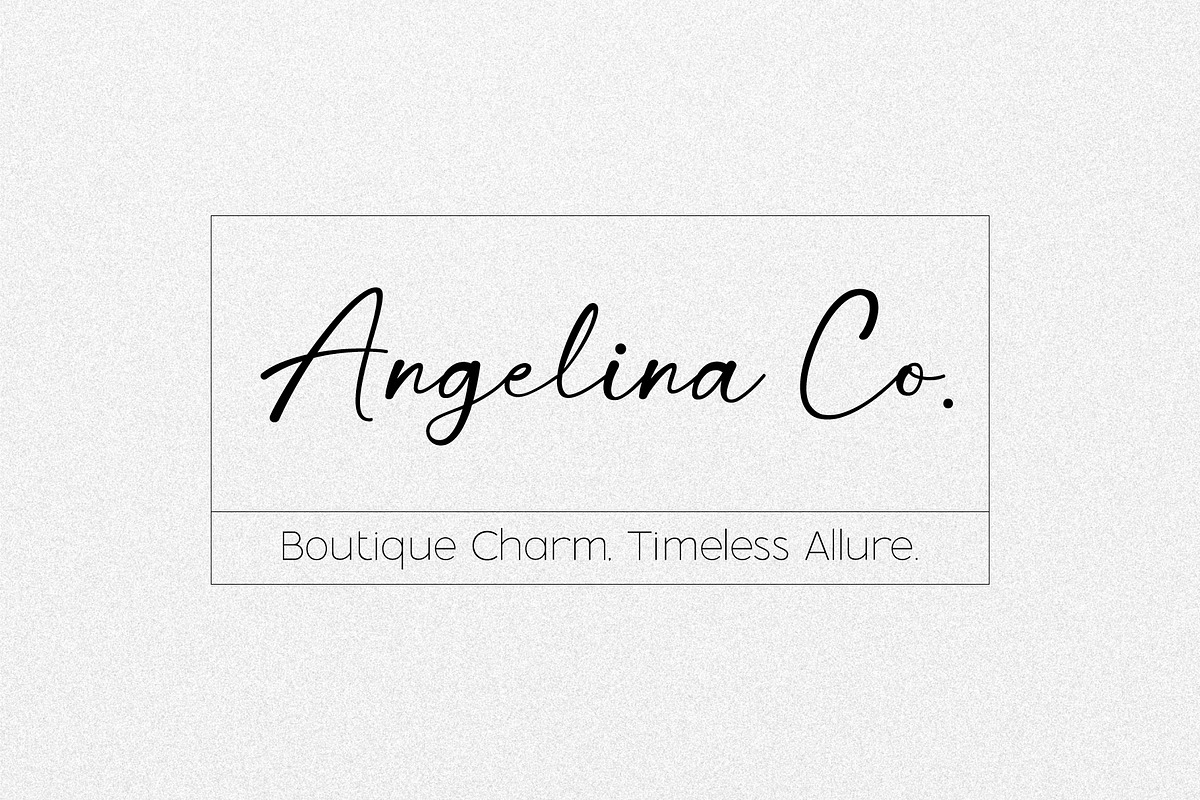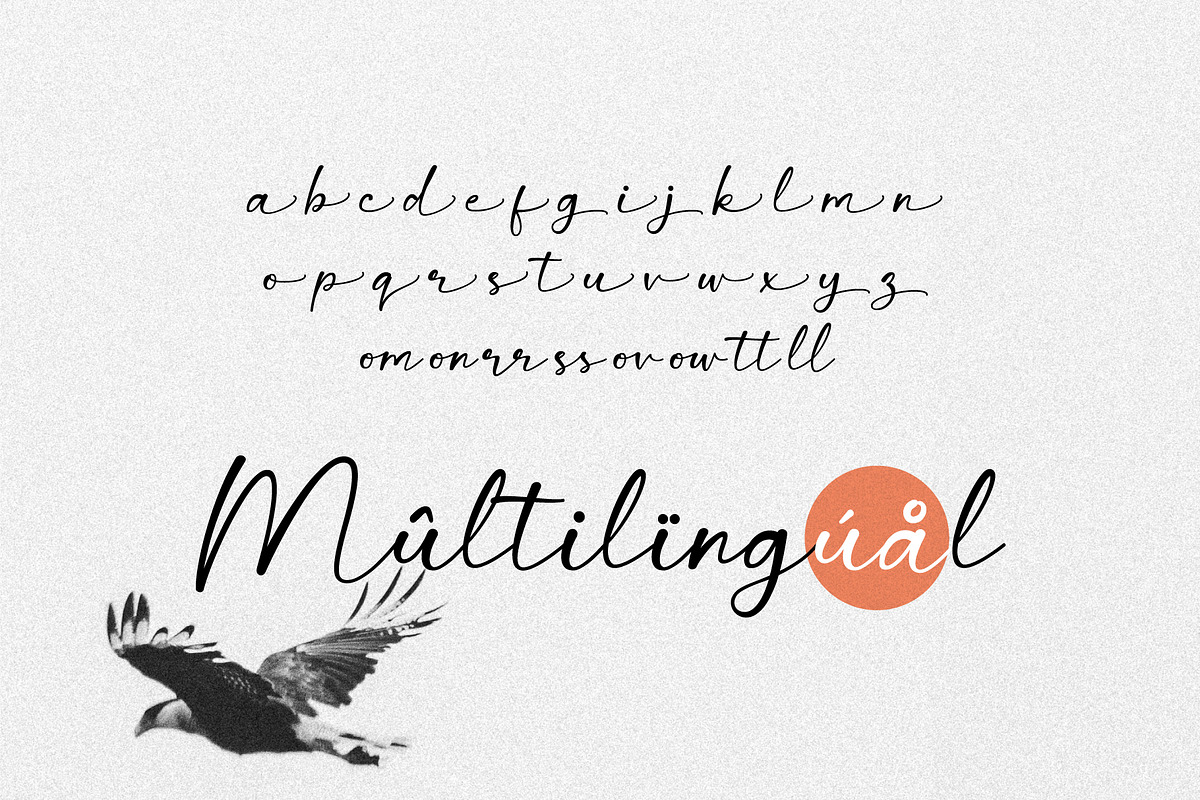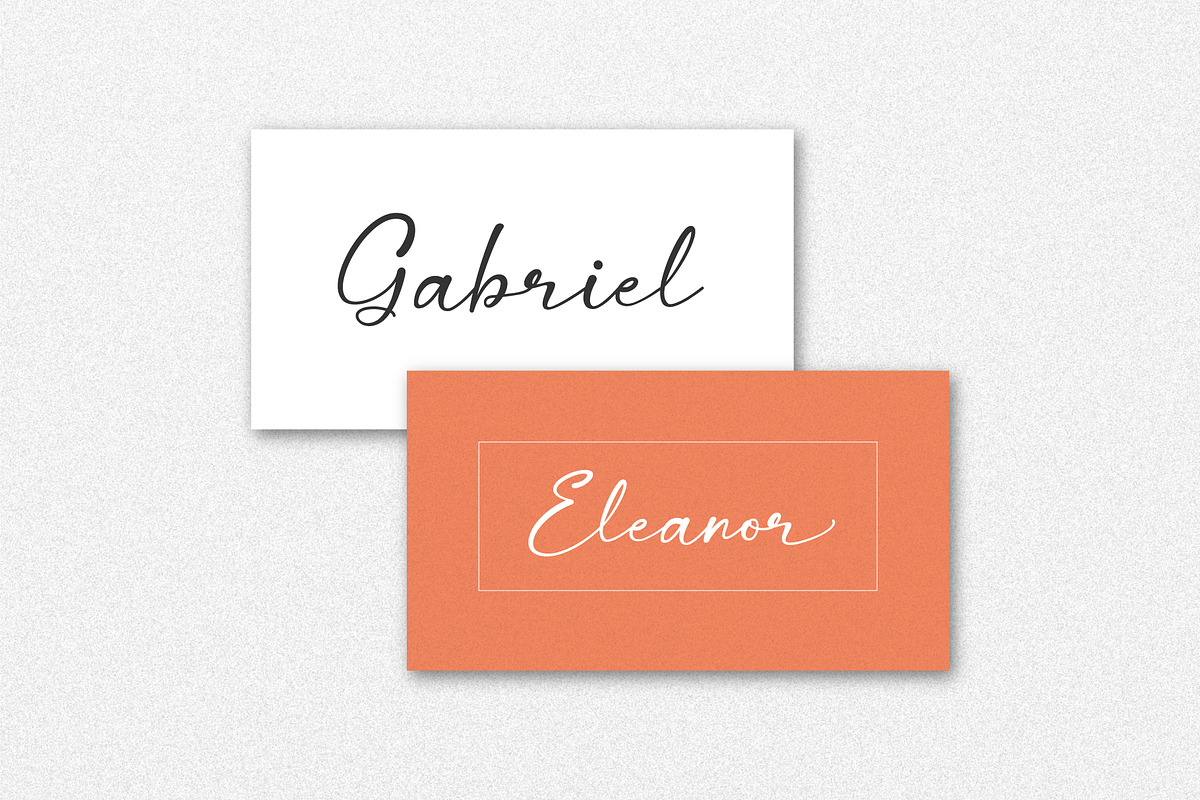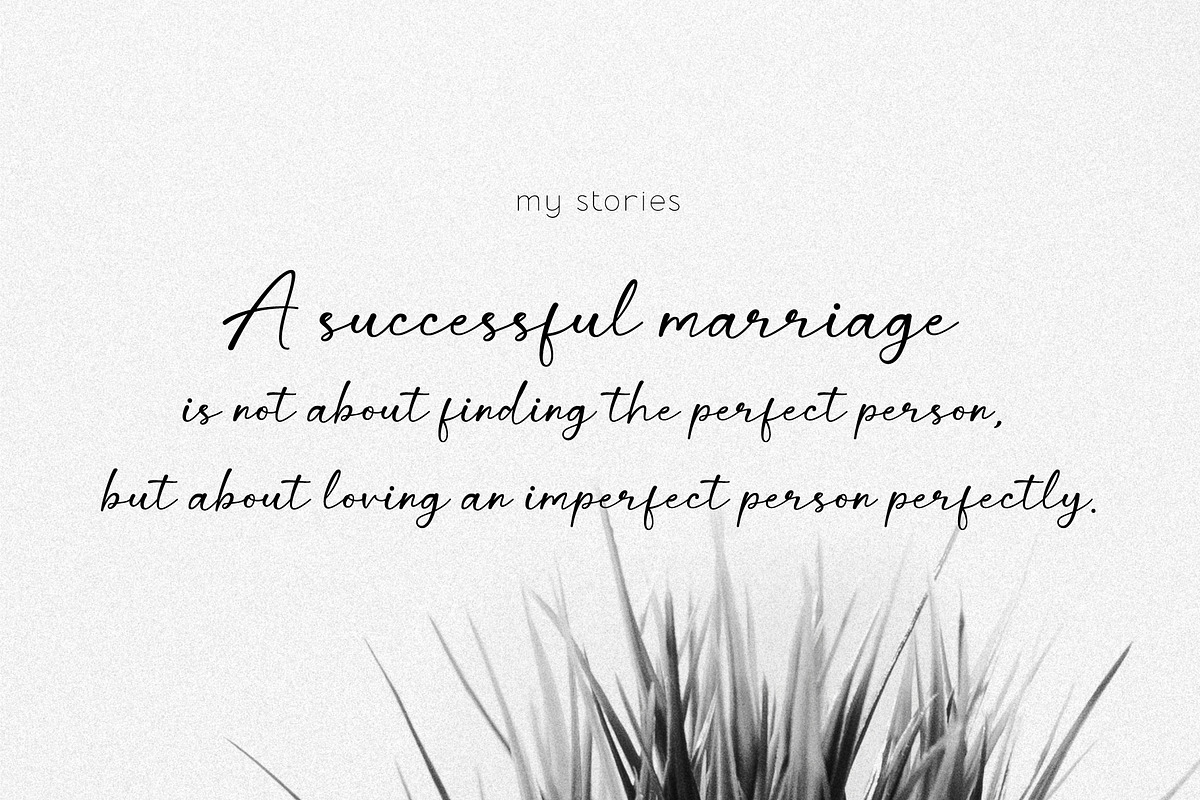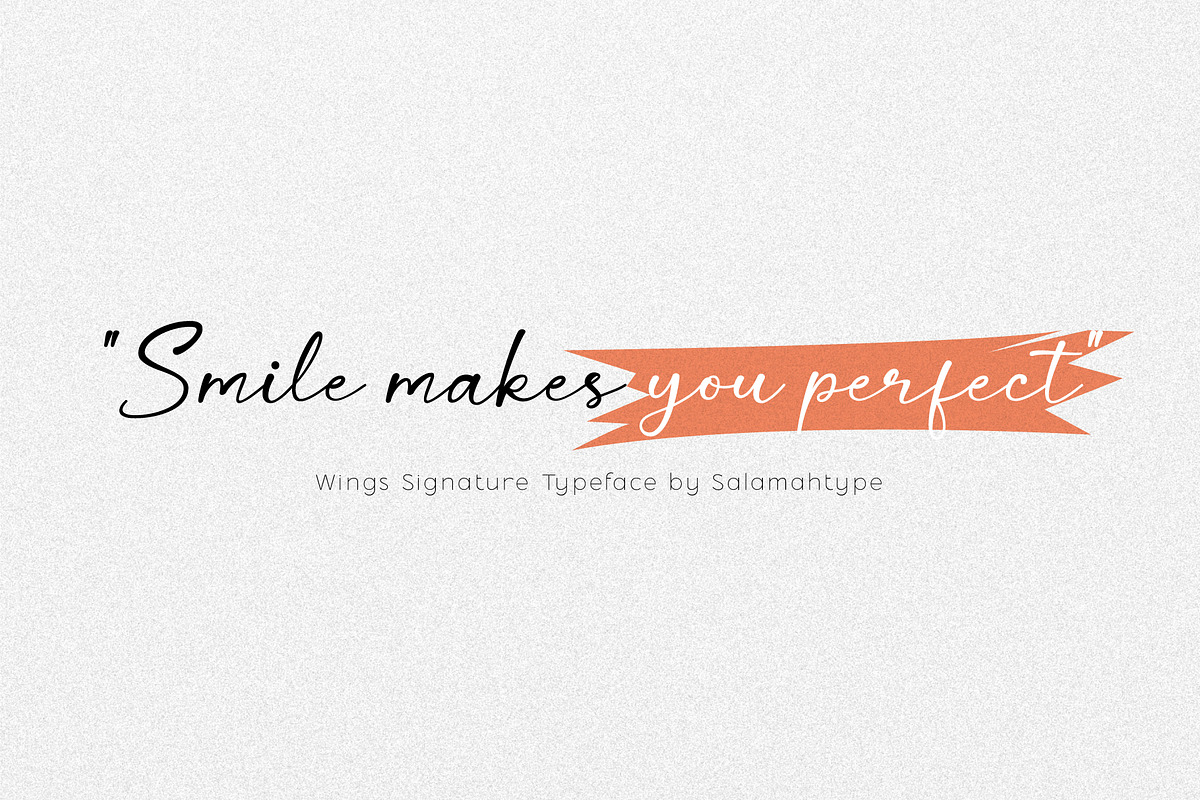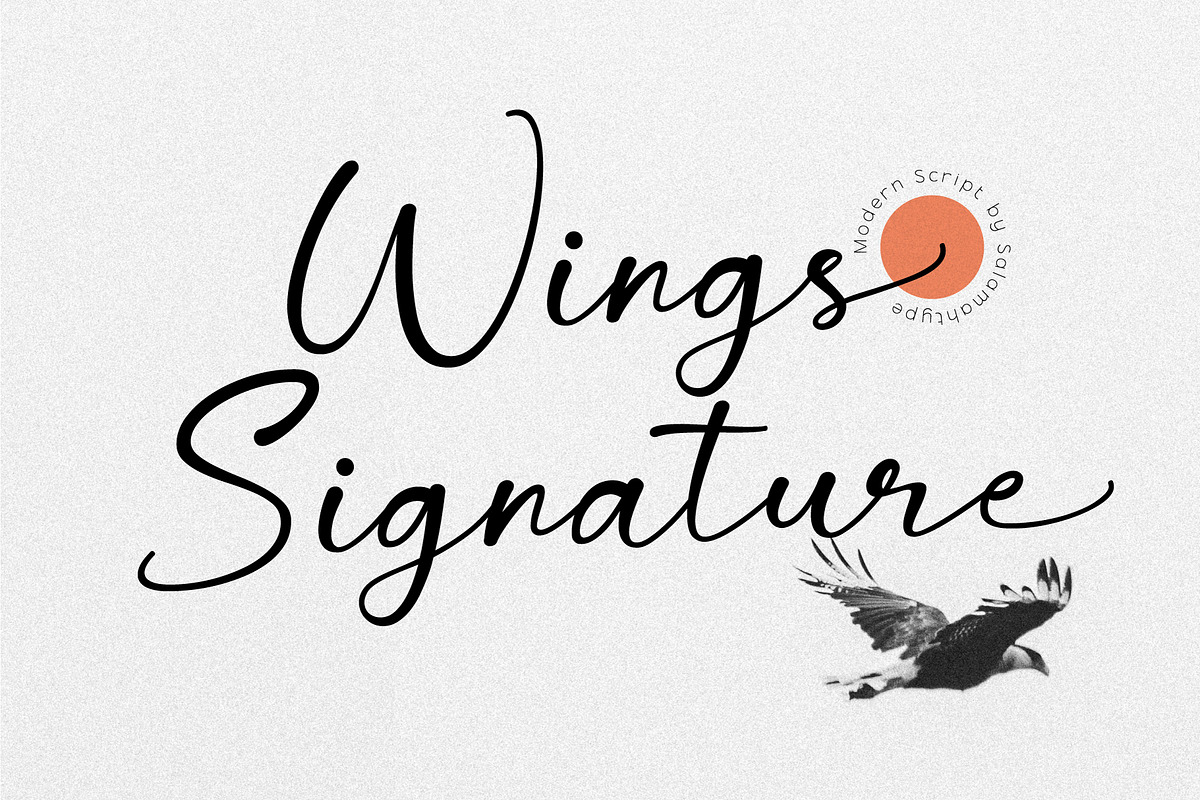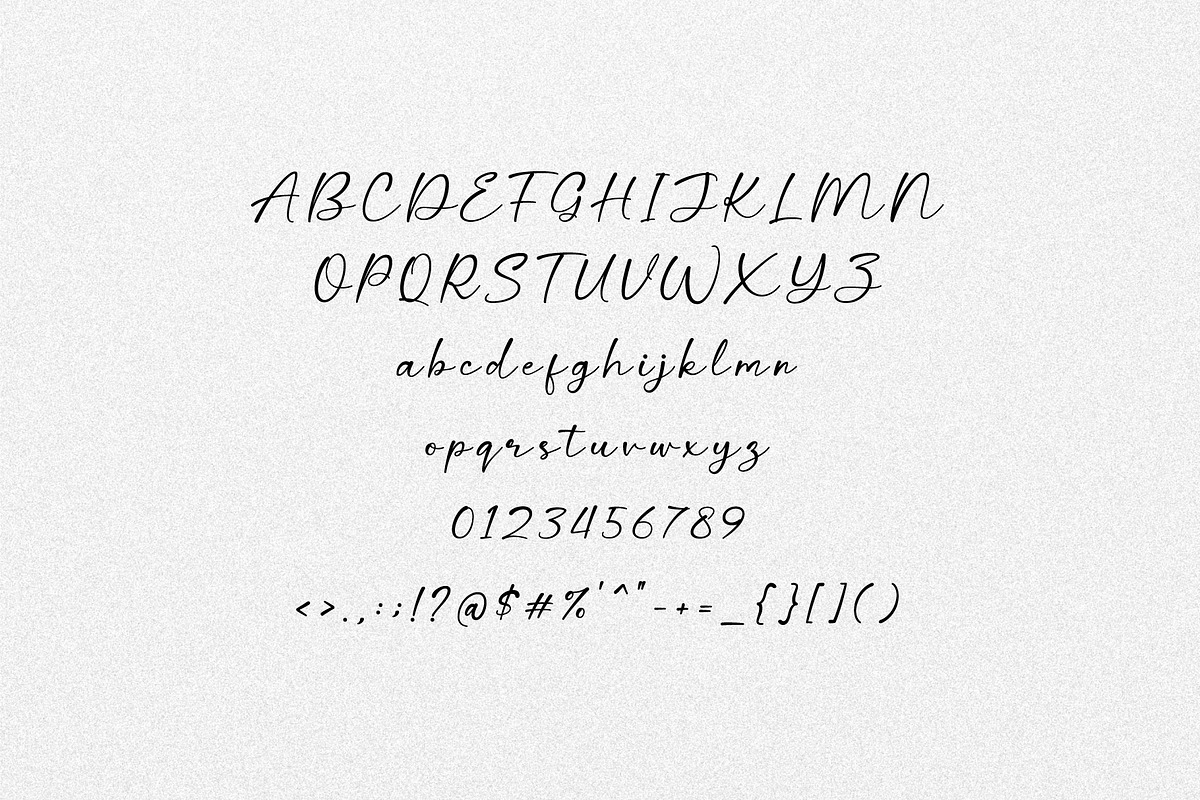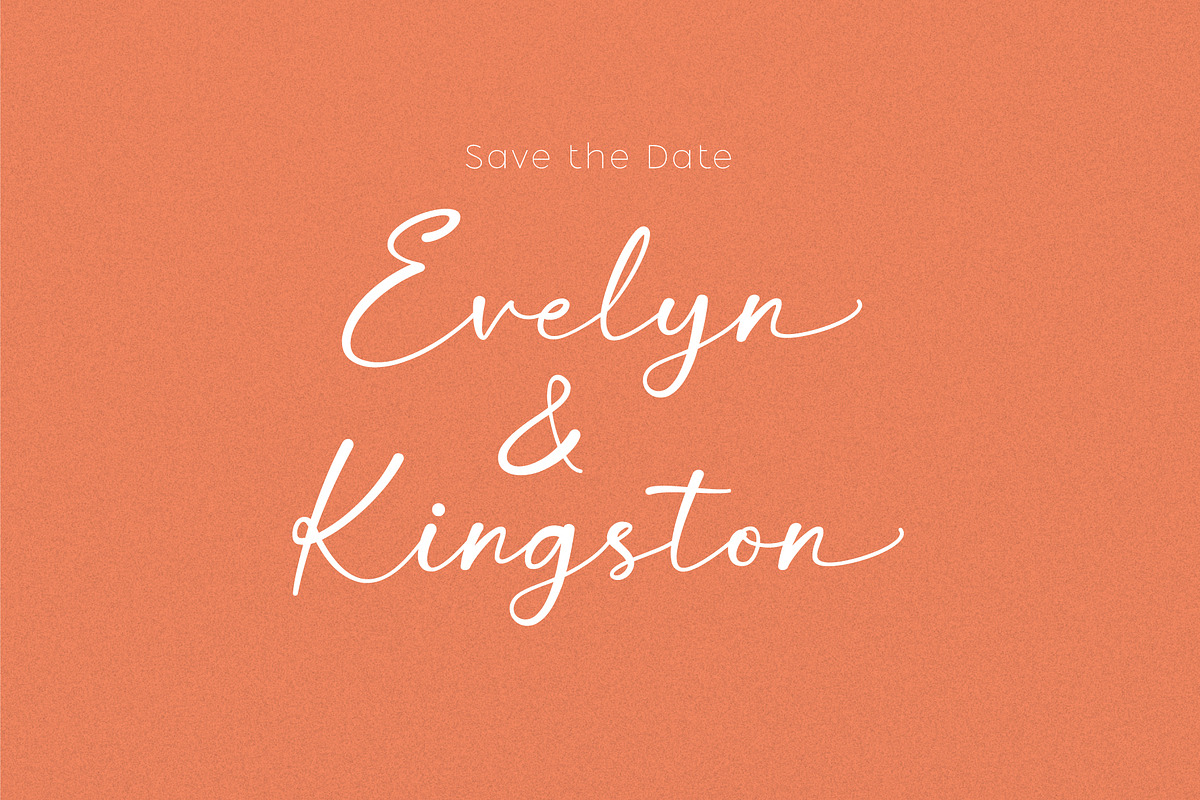
Wing Signature - Elegant Script
Wings Signature is a natural handwriting script font with a smooth and elegant flow. Its stylish and authentic strokes make it perfect for logos, wedding invitations, branding, and more. Whether you’re designing a signature-style logo or adding a personal touch to your projects, Wings Signature brings beauty and creativity to every design.
Wings Signature includes:
- Uppercase Lowercase
- Symbol and Punctuation
- Alternates and Ligatures